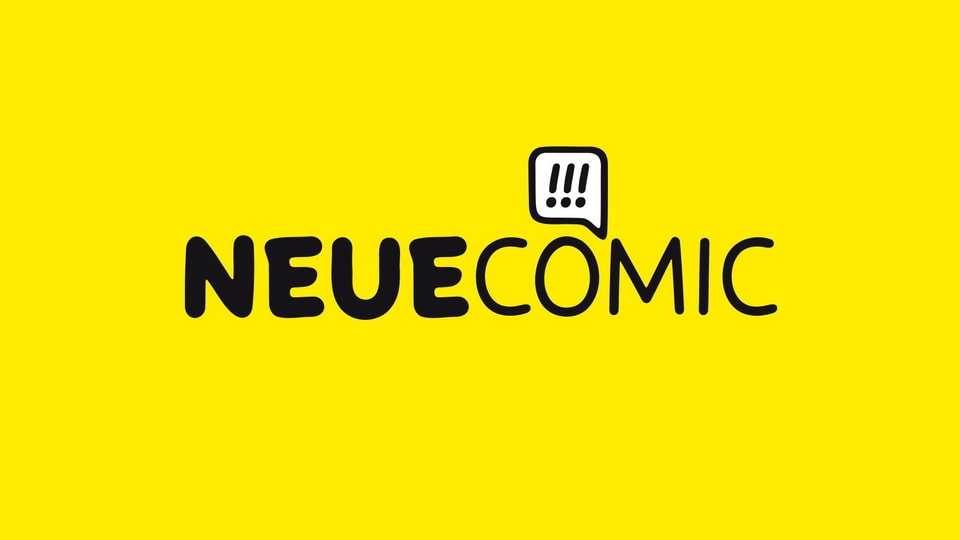
Download Neue Comic font, a rounded typeface making a bold entrance into the design scene, aiming to redefine the delicate balance between playfulness and practicality in typography.
Designer: Unio Creative Solutions